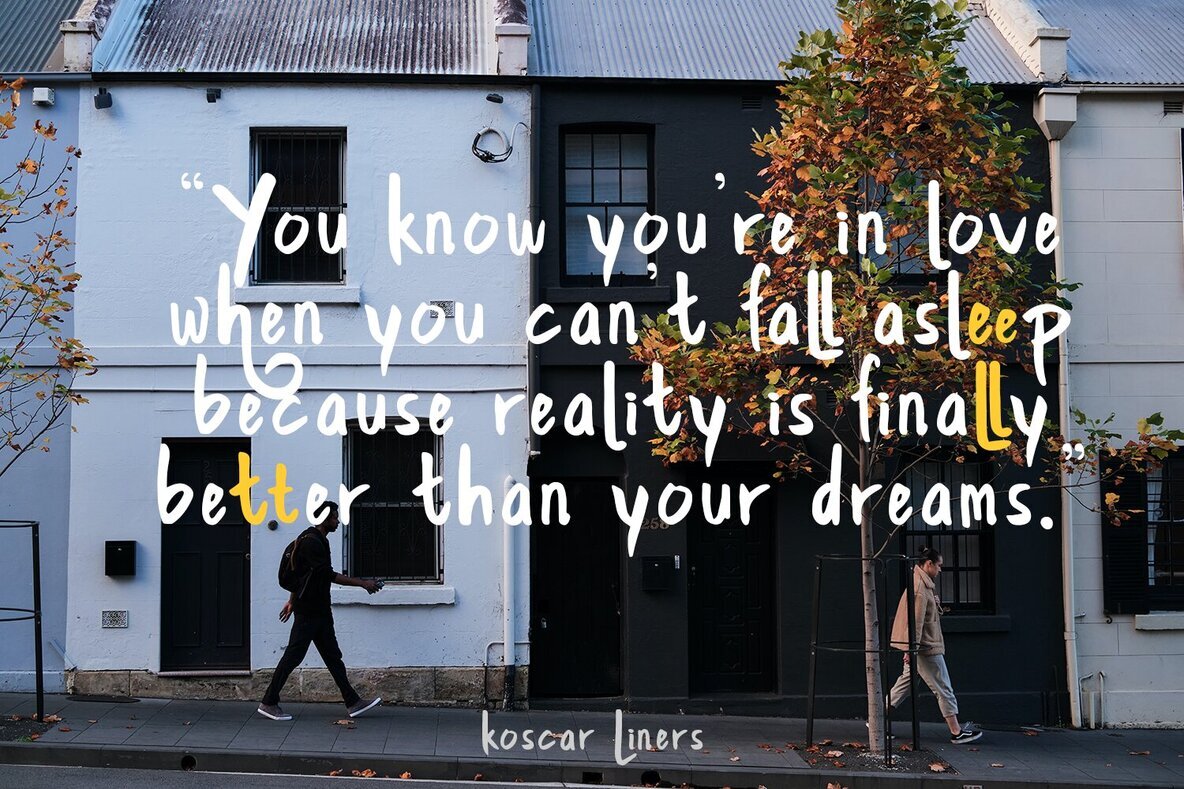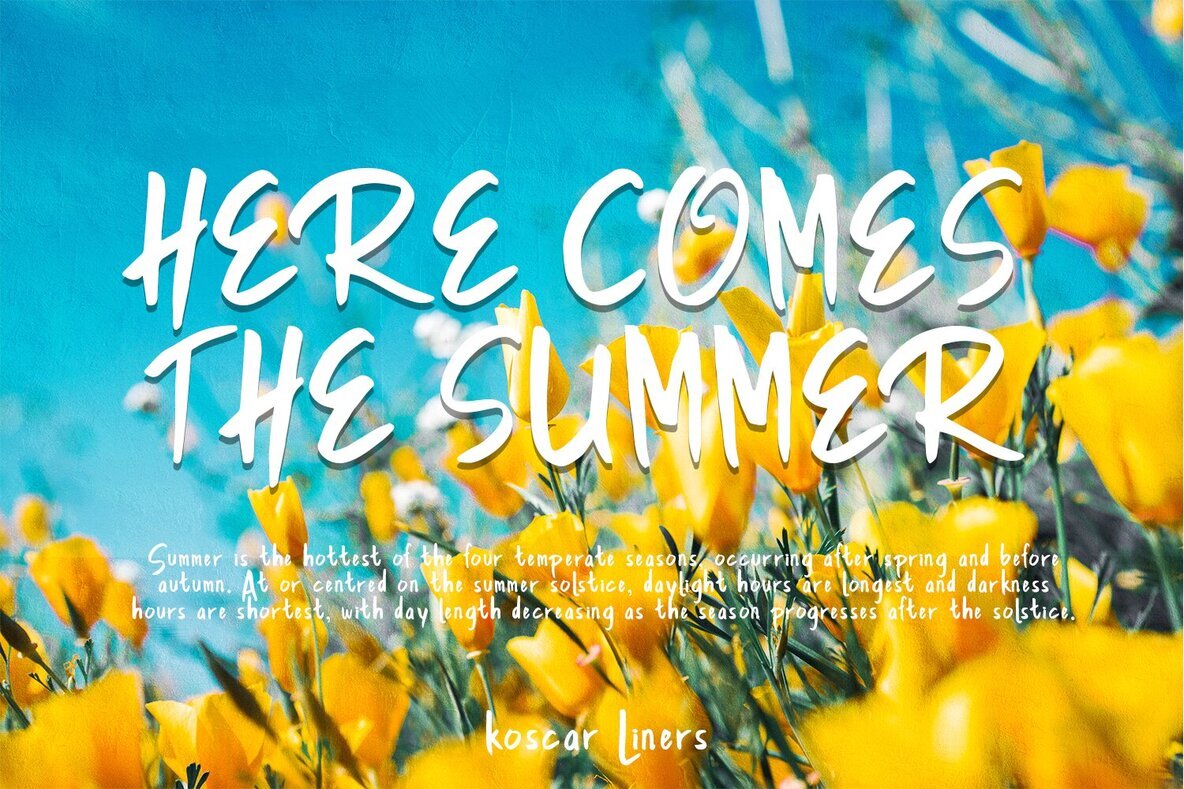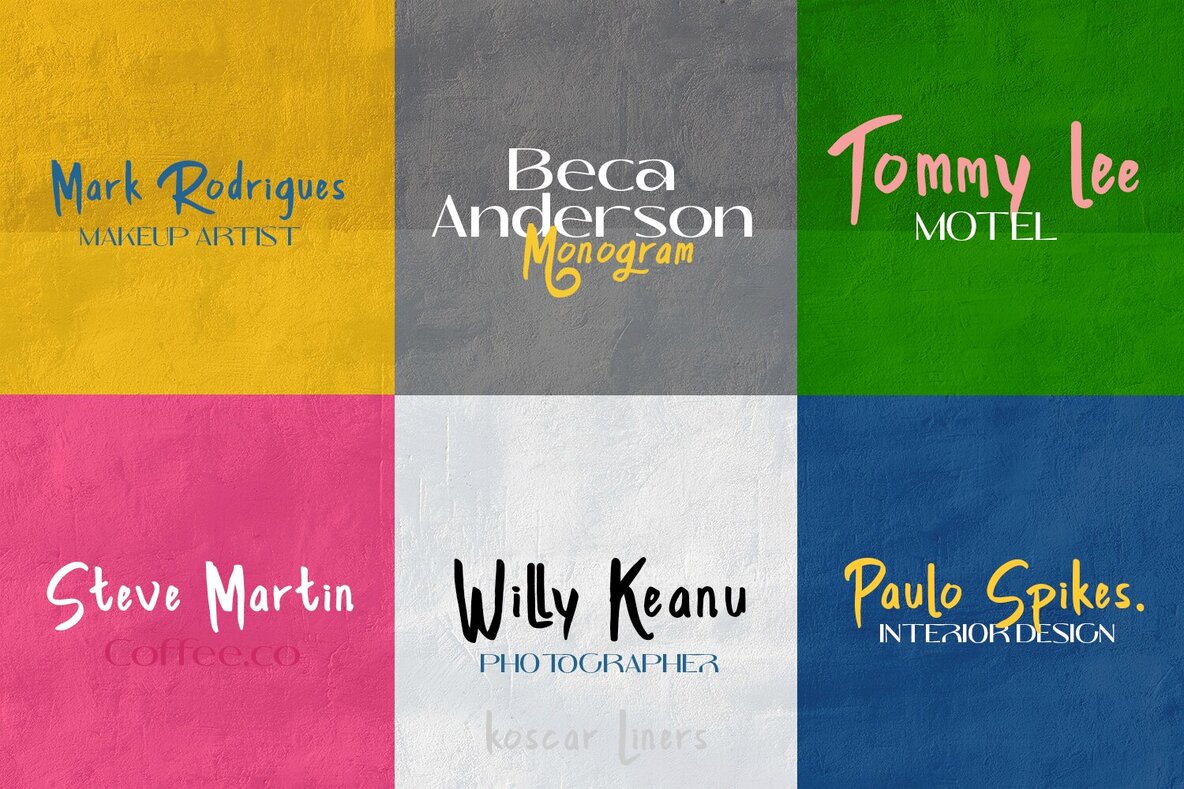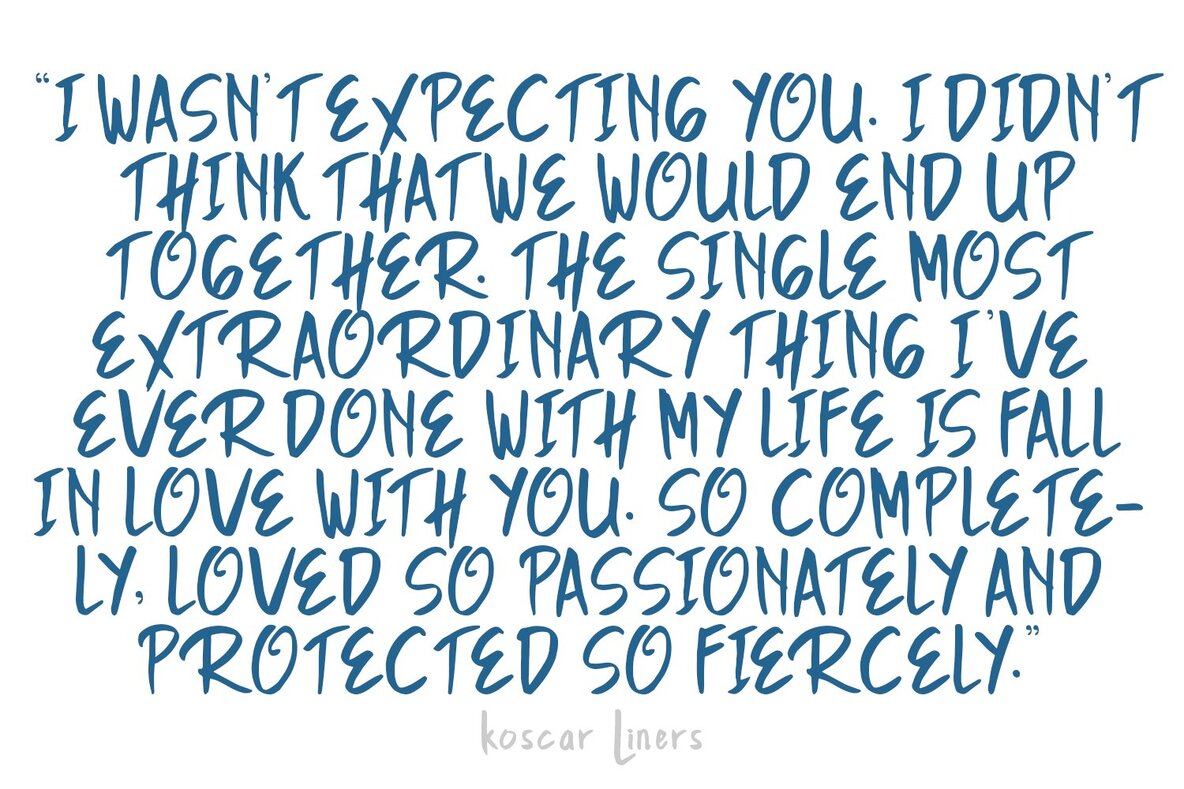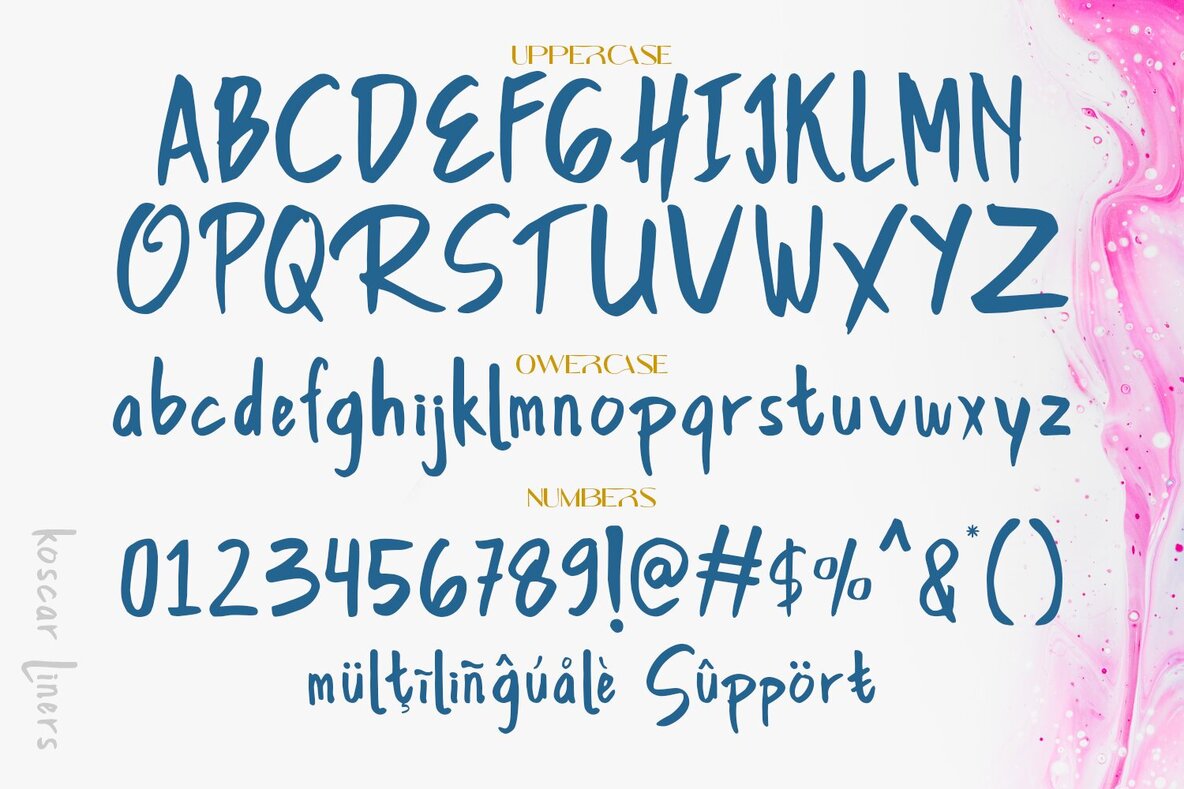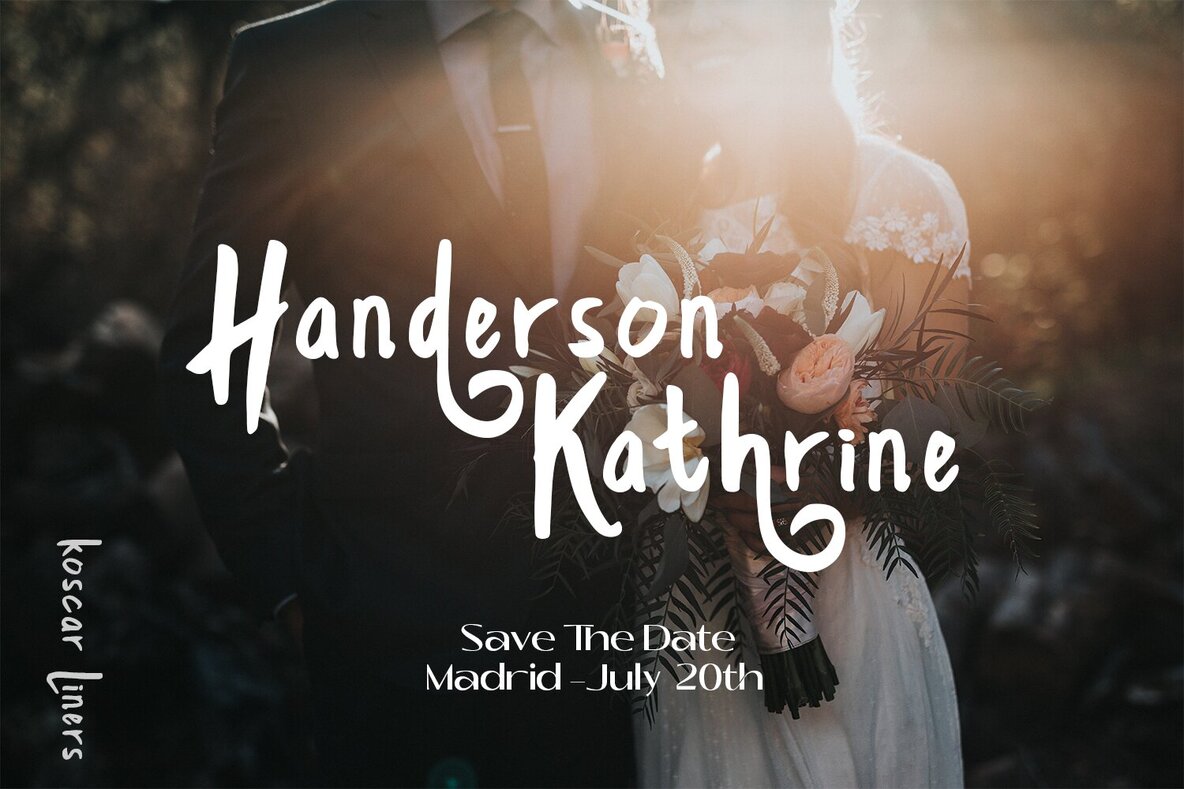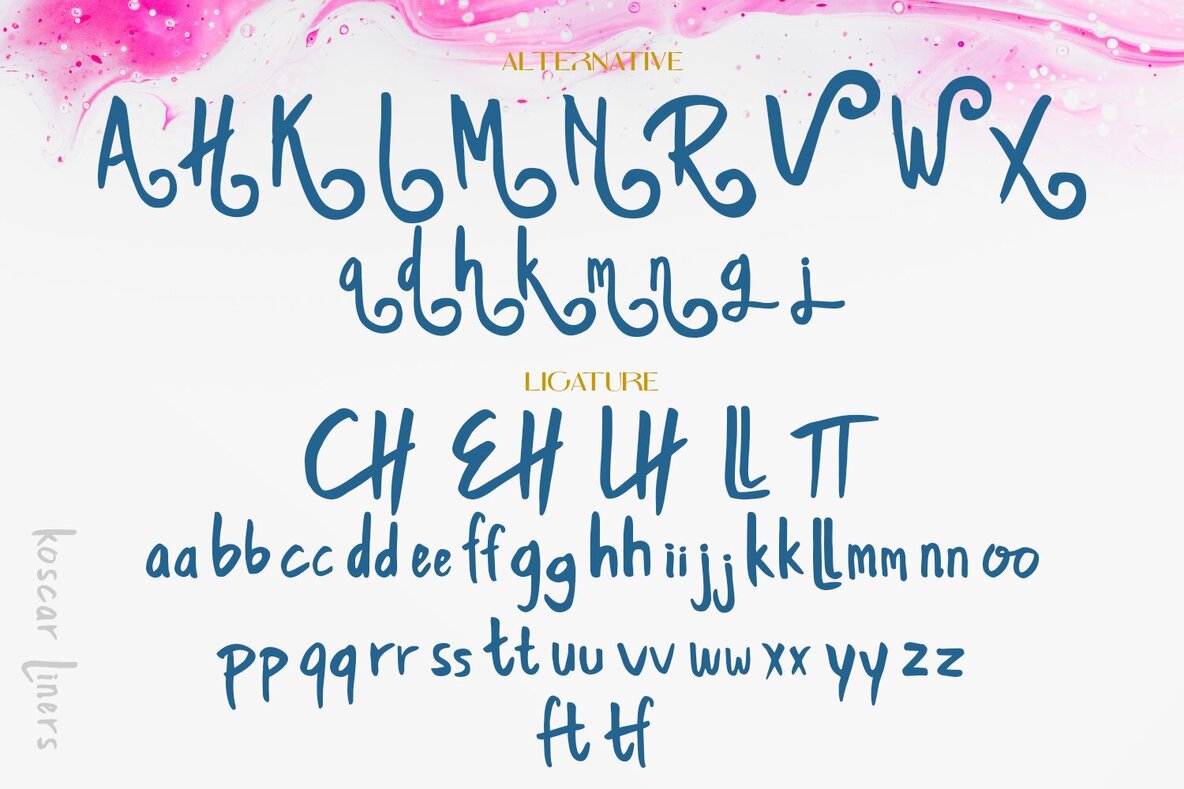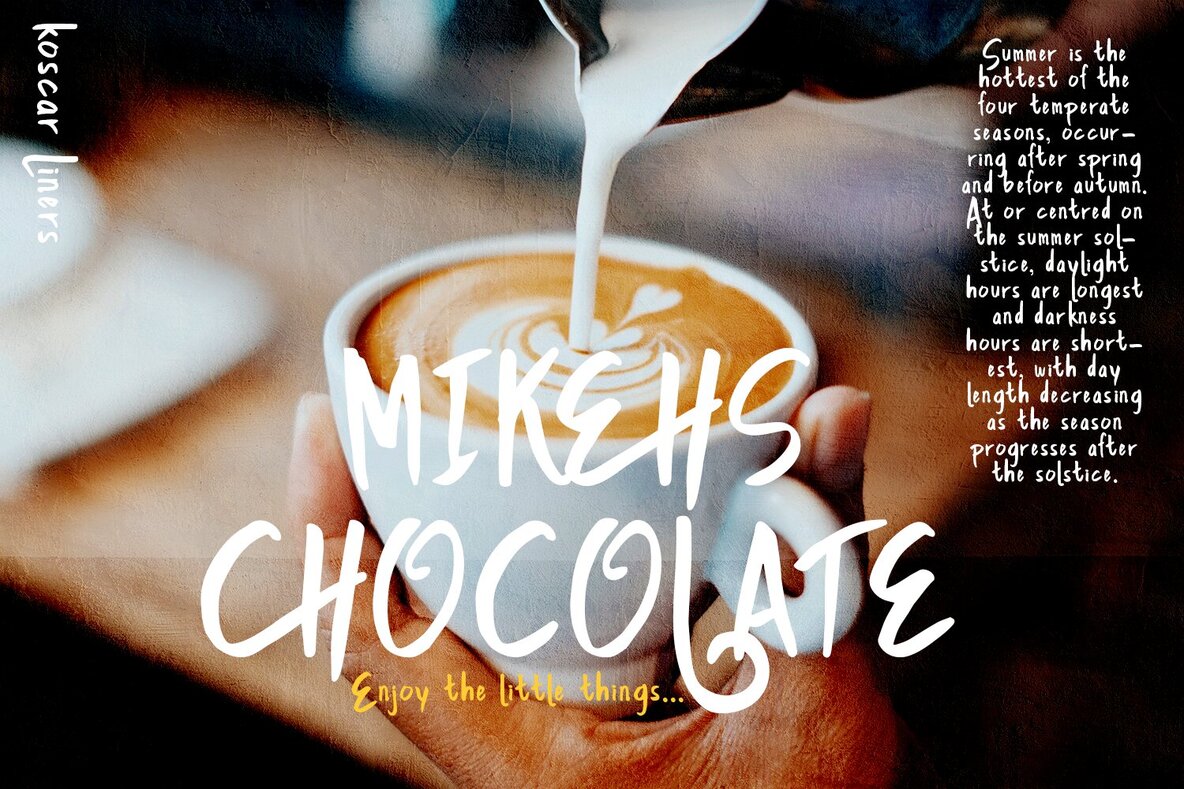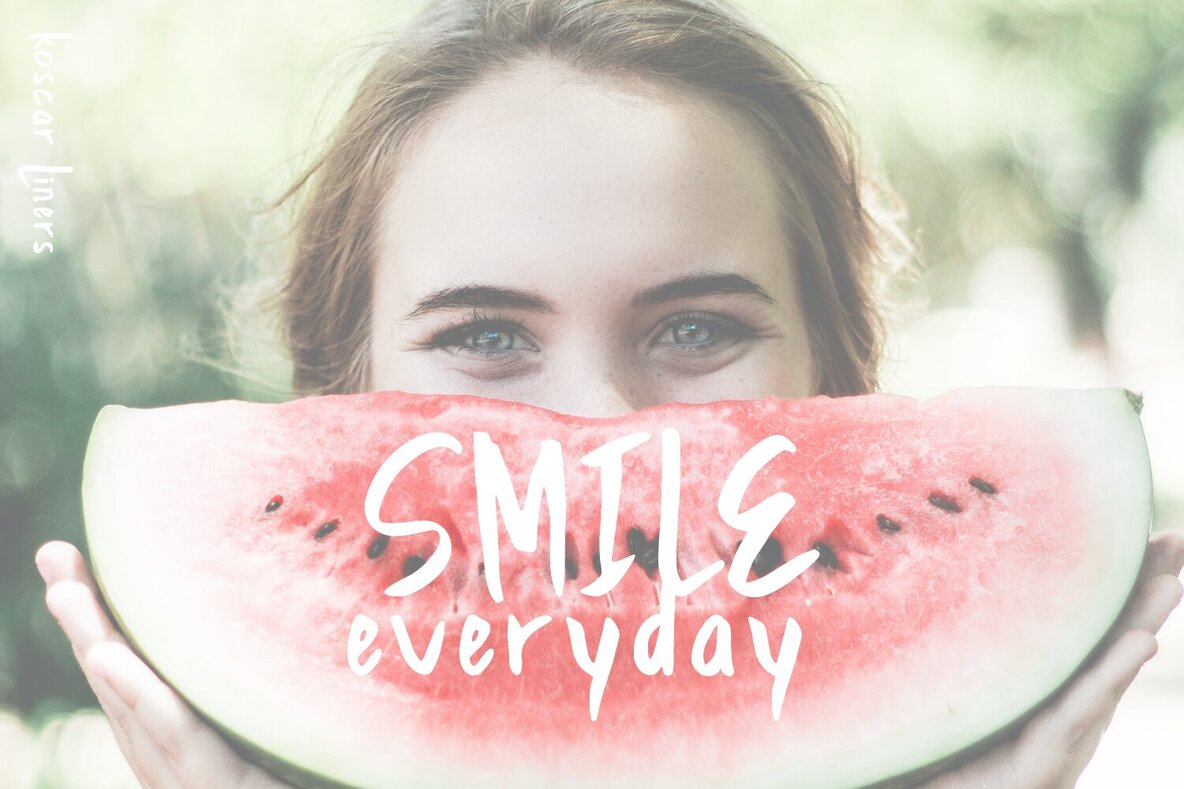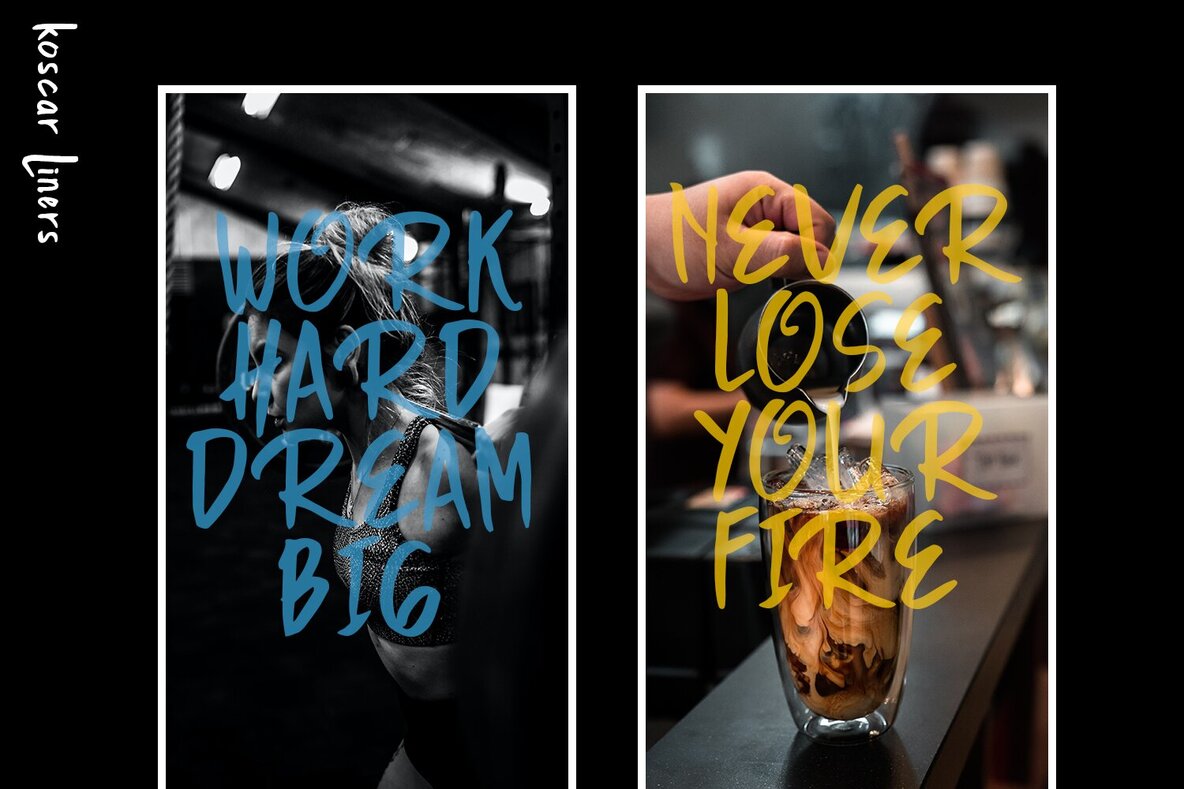
Koscar Liners Font
Koscar Liners Regular
Koscar Liners offers a genuine handwritten style, ideal for enhancing book titles, branding, product packaging, invitations, quotes, labels, posters, and logos. Its natural look adds a personal touch to various design projects.Koscar Liners: Realistic Handwritten Font